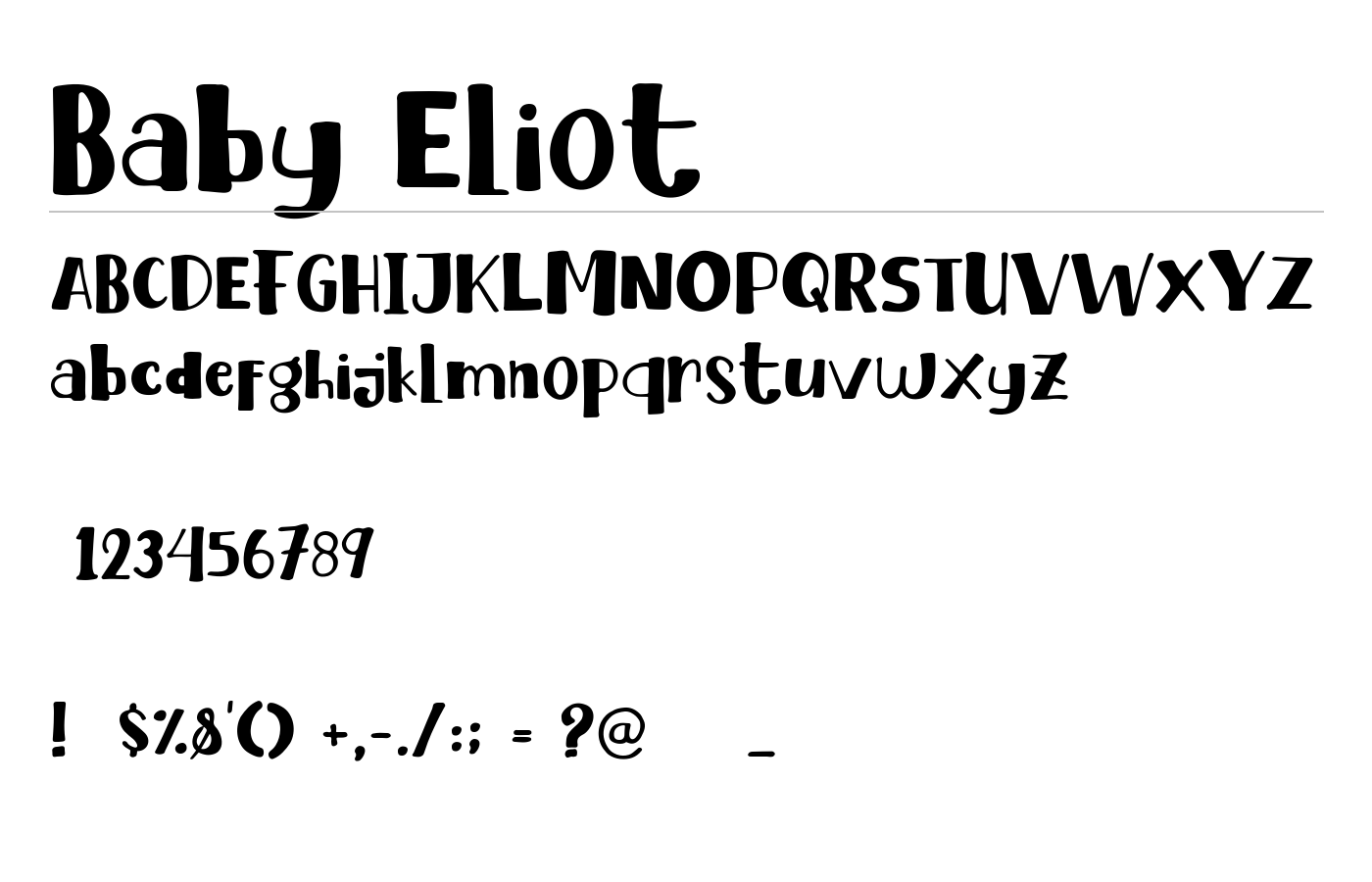
Baby Eliot is a playful and quirky sans serif font with a hand-drawn, casual feel. Its uneven letterforms, moderate weight, and slightly condensed width give it a friendly and approachable personality, making it perfect for children's books, creative projects, and informal branding. This font works well in headlines and logos where a fun, whimsical tone is desired.
Baby Eliot Font
About Baby Eliot Font
| Font family | Baby Eliot Font |